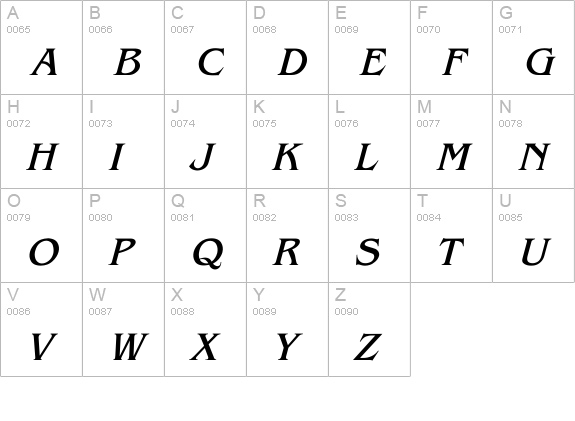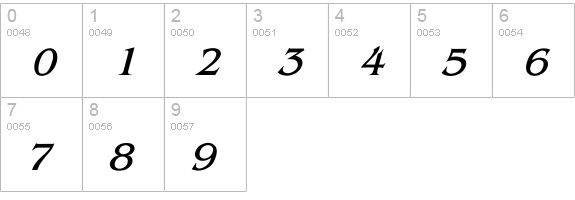
Benguiat Italic Font Details
Benguiat Italic is a distinctive, italic variant in the Benguiat typeface family \xE2\x80\x94 well suited to design and typography projects.
Benguiat Italic is a sophisticated and elegant font that exudes a sense of timeless charm and artistic flair. With its slanted and graceful letterforms, Benguiat Italic adds a touch of sophistication to any design project. The flowing strokes and unique serifs give this font a distinct personality that sets it apart from other typefaces. One of the best things about Benguiat Italic is that it is free to download at FontsMarket.com. This means that you can easily access this stylish font for all your creative endeavors without any cost. Whether you're working on a branding project, creating invitations, or designing a website, Benguiat Italic is a versatile font that will elevate your work to the next level. Download Benguiat Italic from FontsMarket.com today and add a touch of elegance and sophistication to your designs with this beautiful and freely available font.